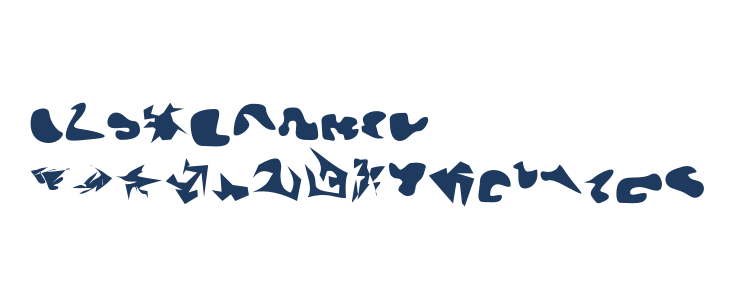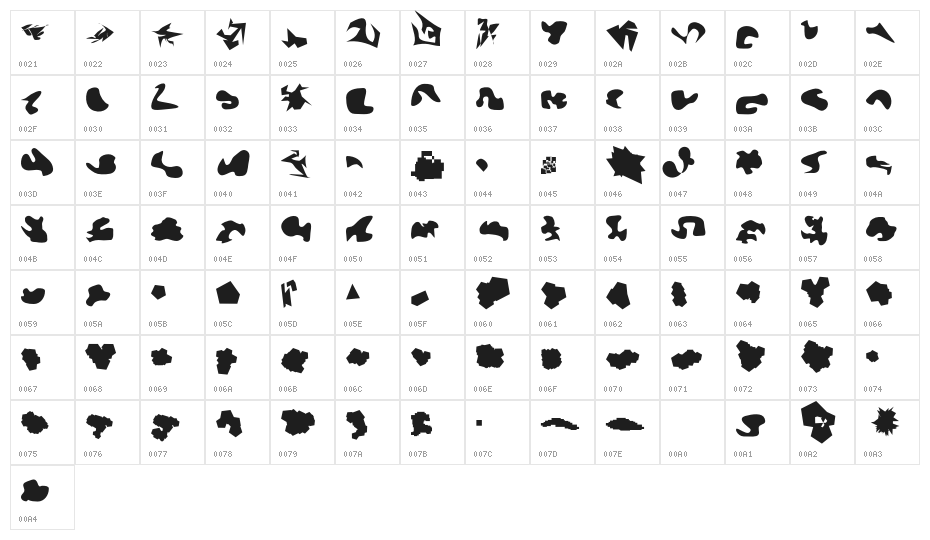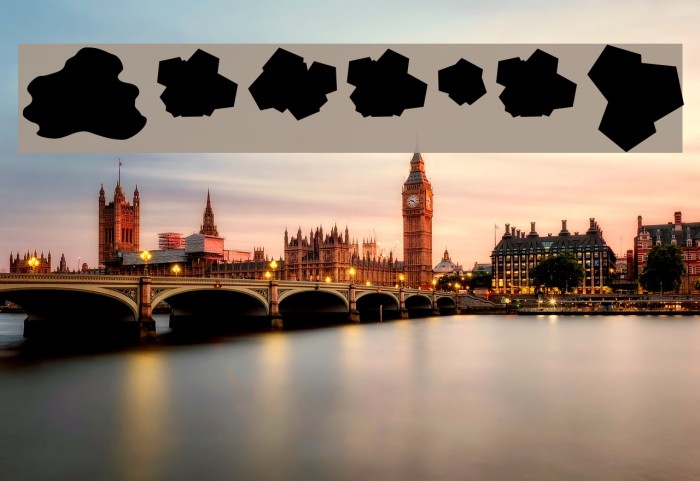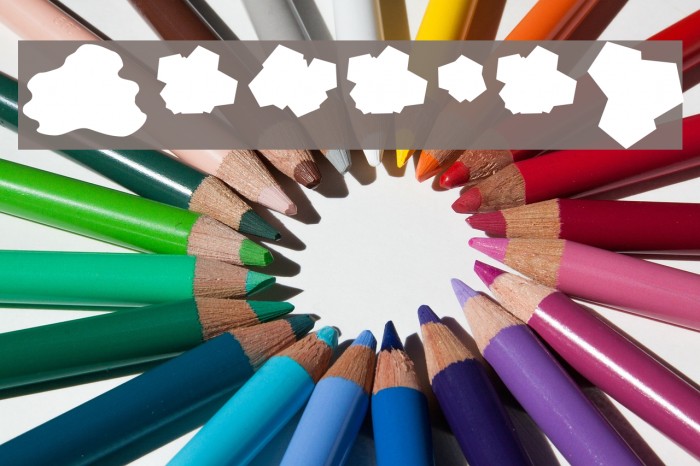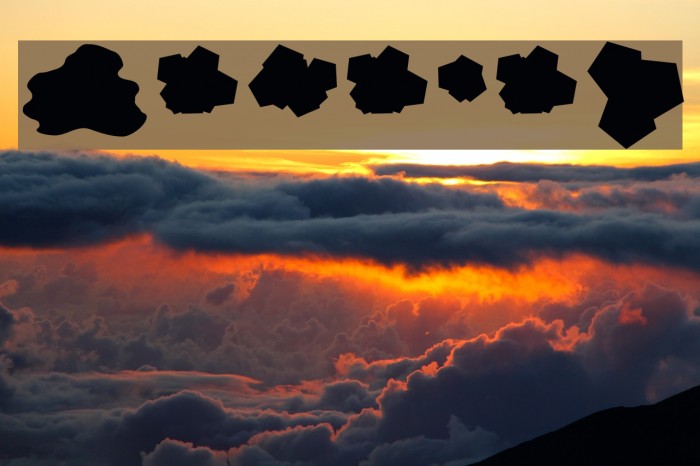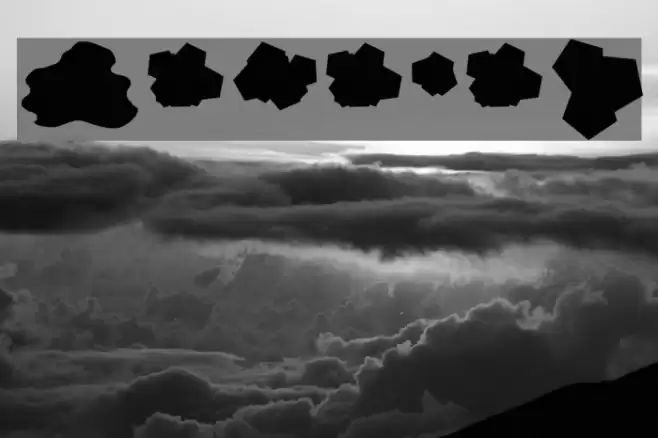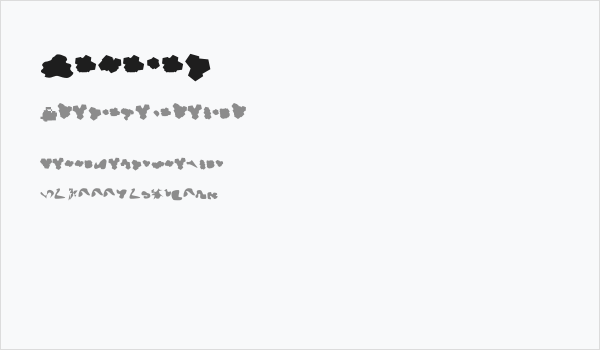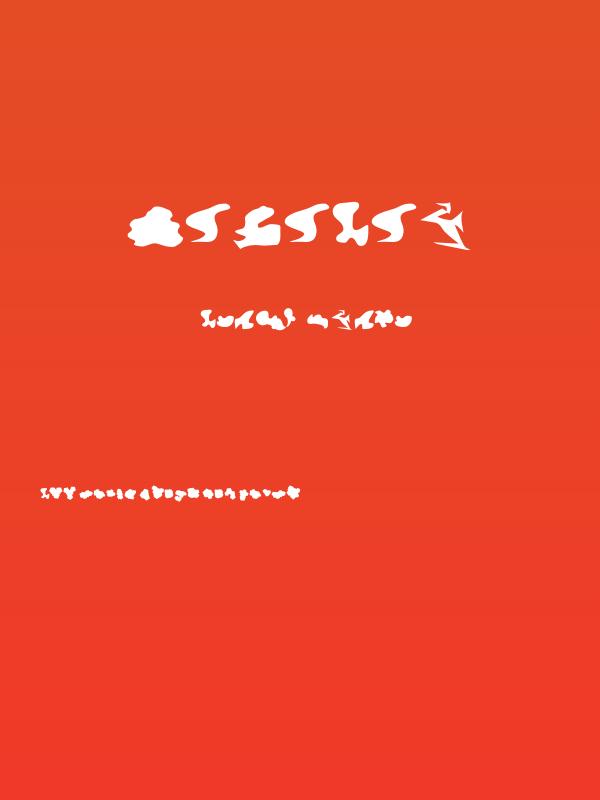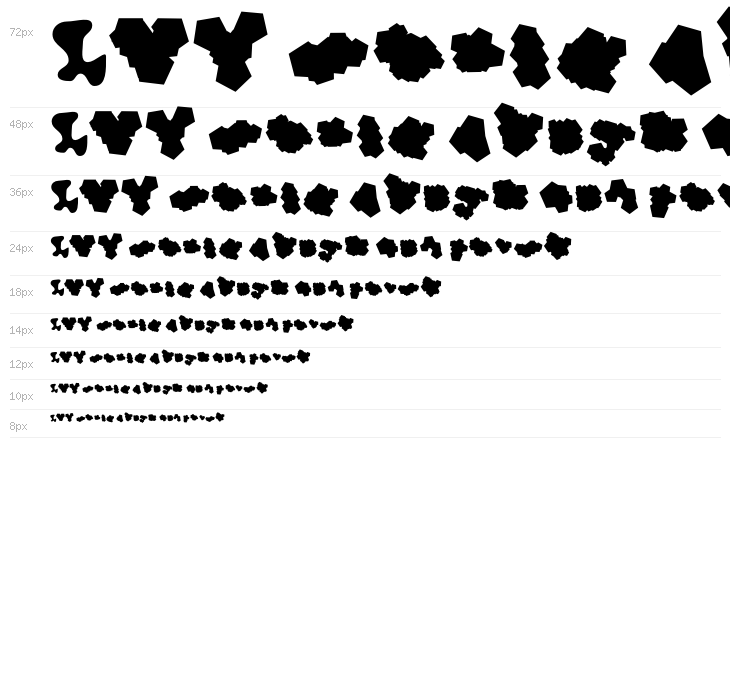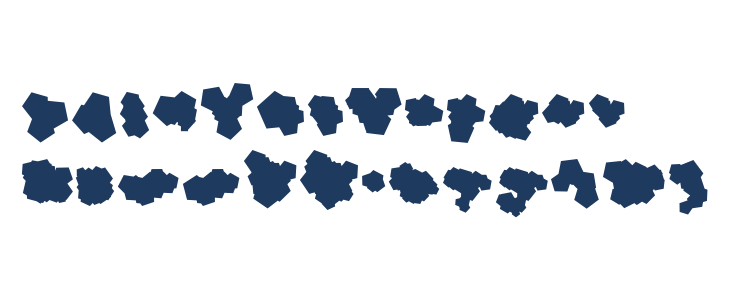
Militia Font
Militia Description
This font features an abstract and highly stylized design, with each character appearing as a unique, artistic silhouette. The shapes are bold and irregular, resembling abstract art more than traditional typography. The characters lack uniformity, with varying widths and heights, creating a chaotic yet intriguing visual effect. This font is not suitable for body text due to its lack of legibility but can serve as a striking element in creative projects. The overall style is decorative and avant-garde, making it ideal for artistic and experimental uses.
| Use Case | Artistic projects, experimental designs, creative branding. |
| Proposed Projects | Ideal for artistic projects, experimental designs, album covers, and creative branding. |